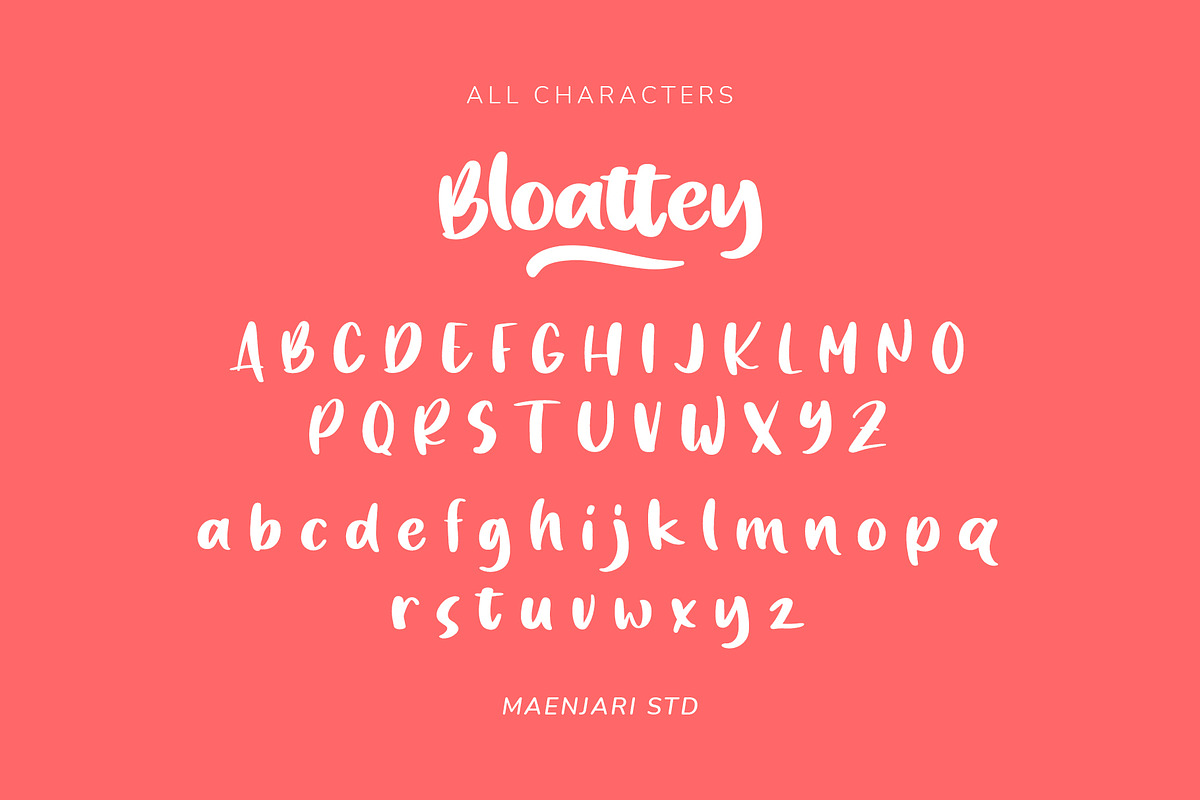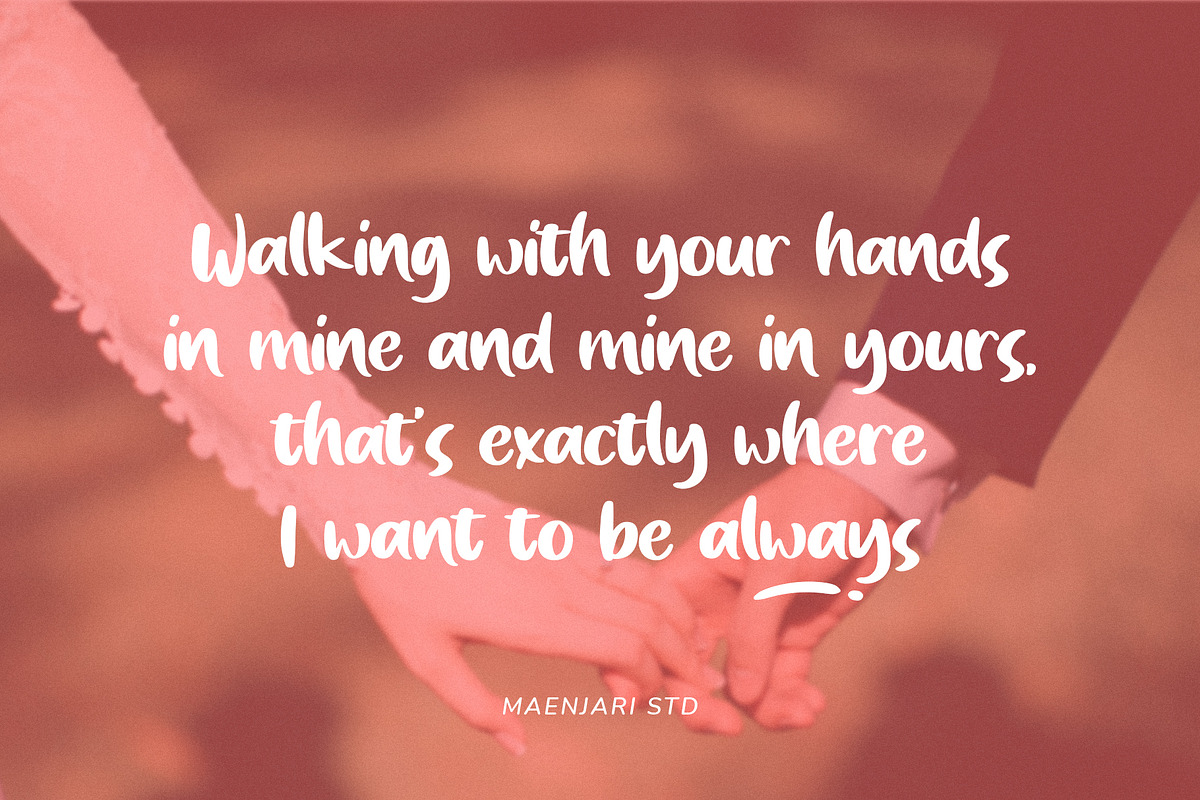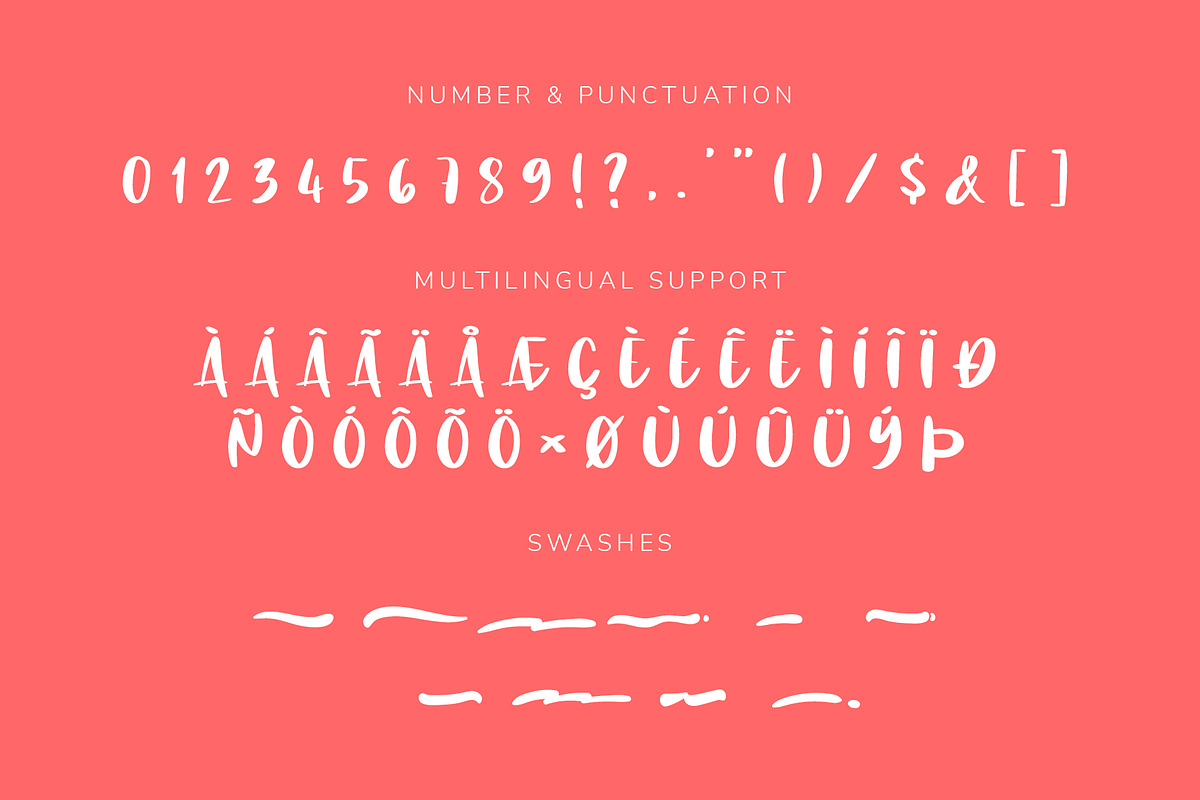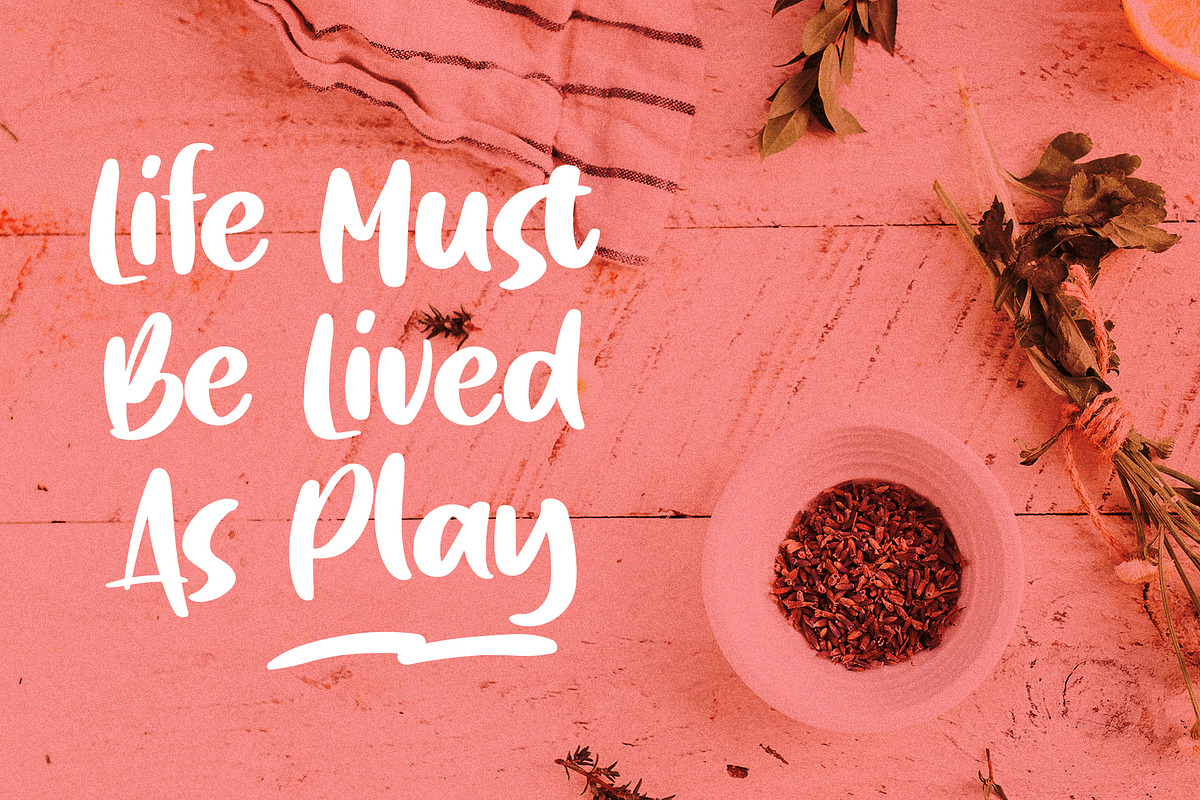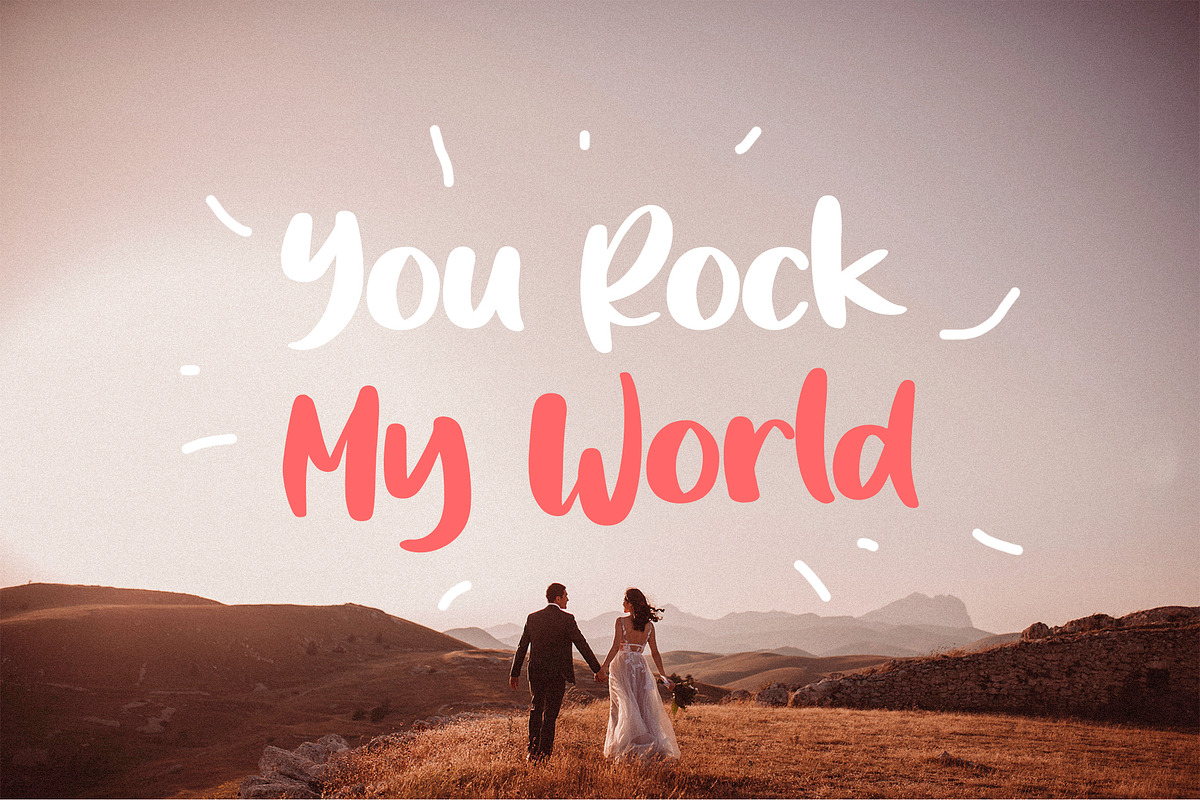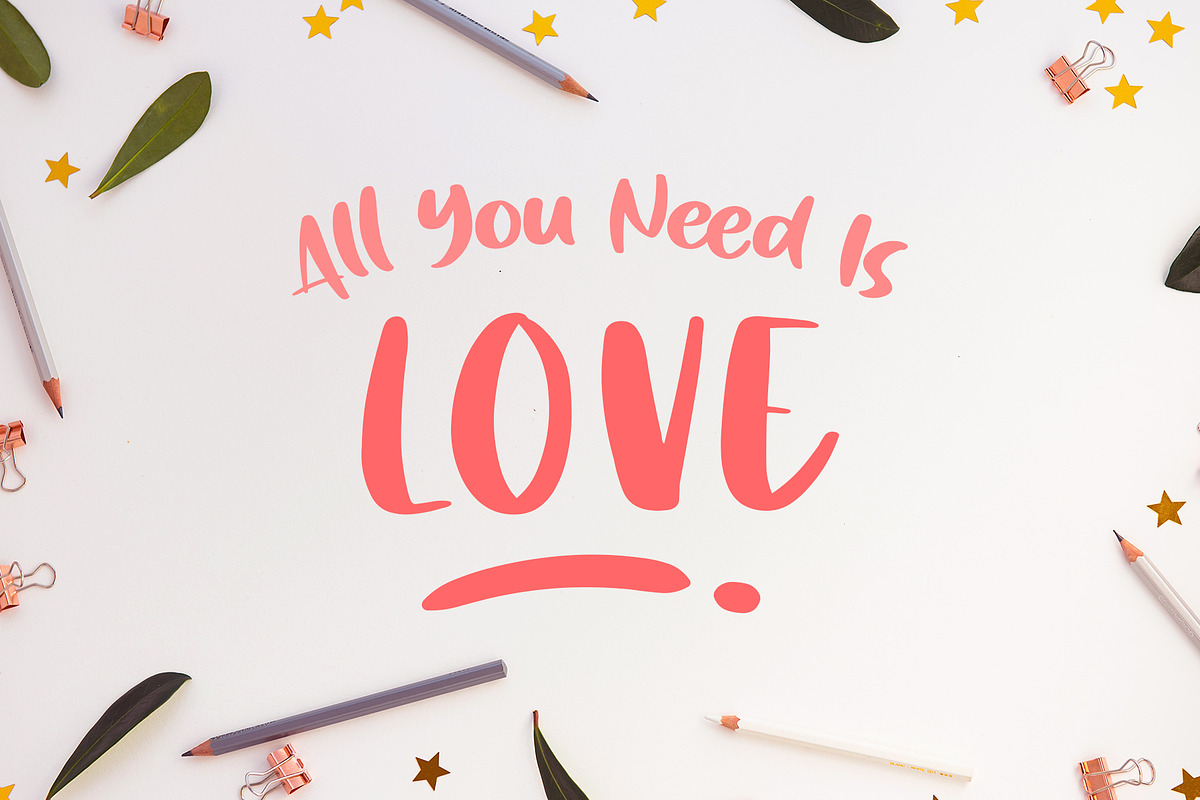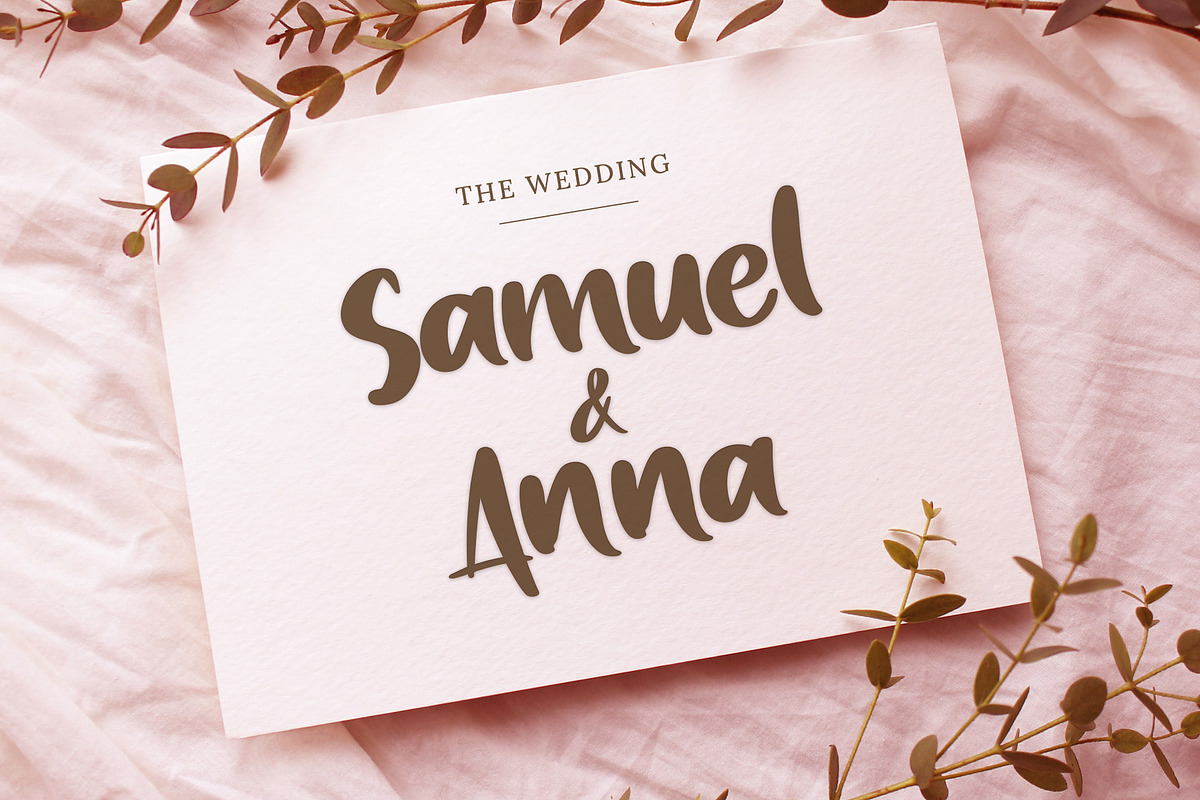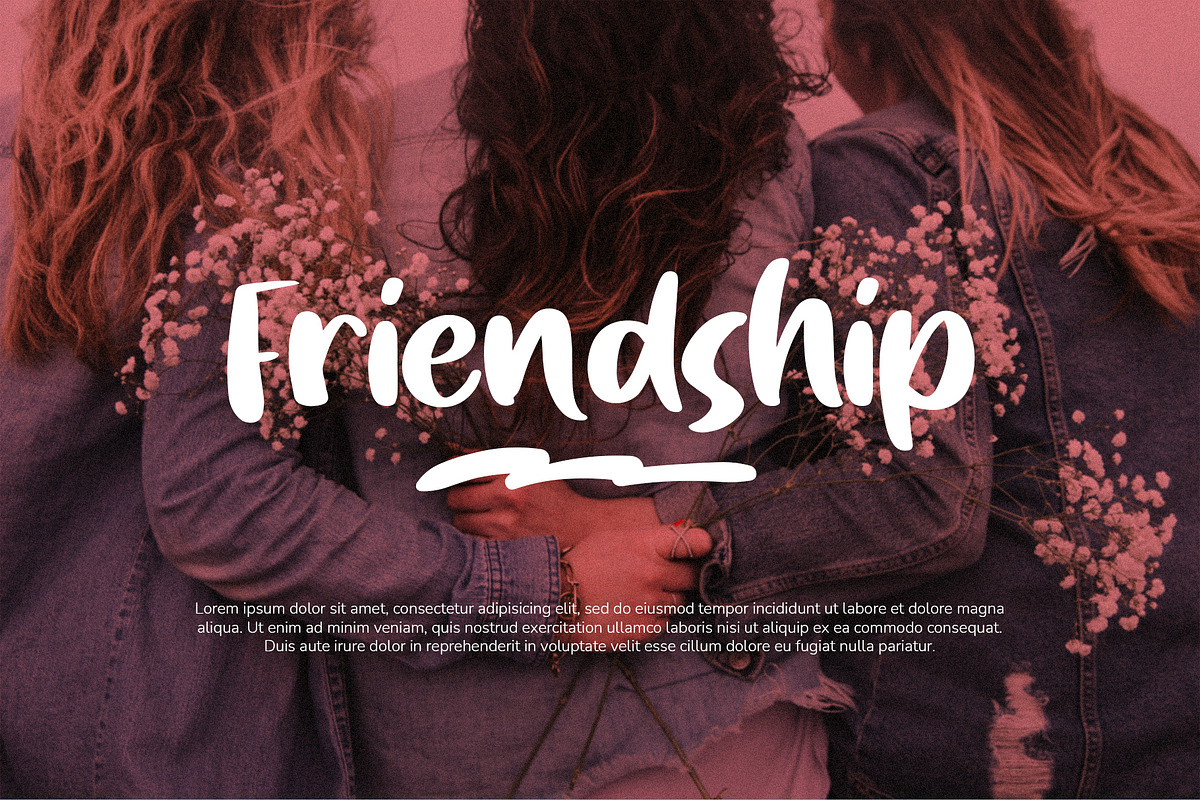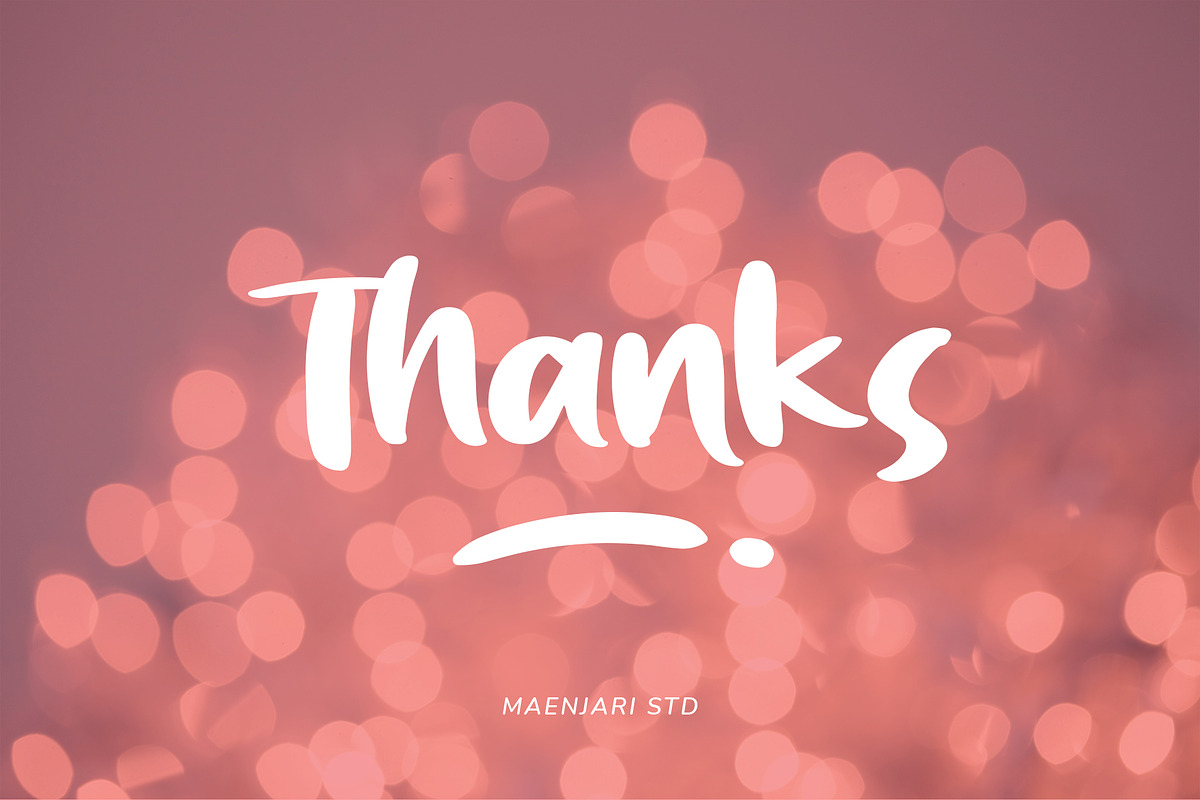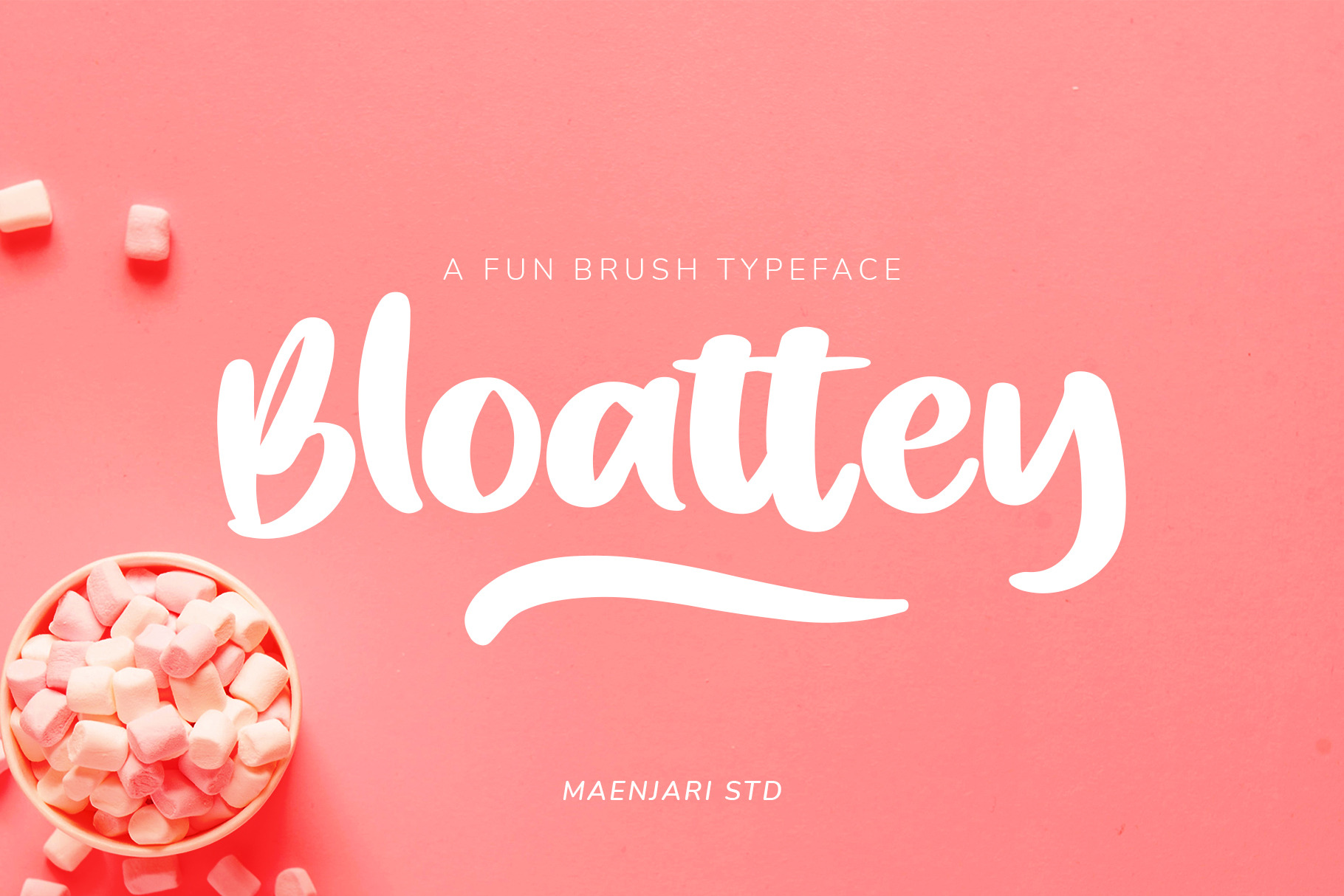
Bloattey - A Fun Bubbly Typeface
Bloattey is a unique and playful font that will bring a bubbly and fun touch to any project. With bold, chunky strokes and a hand-drawn style, this font is perfect for wedding invitations, posters, headlines, and titles. Its unique character sets it apart from other fonts and will add a special touch to your design. Bloattey is sure to make your project stand out and be unforgettable.